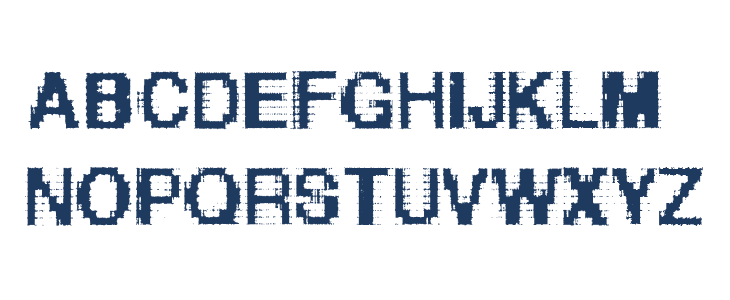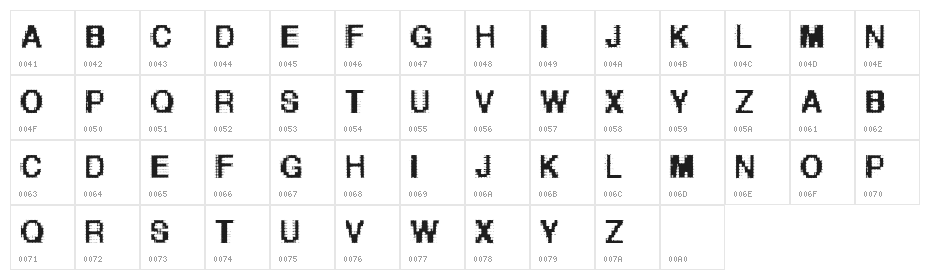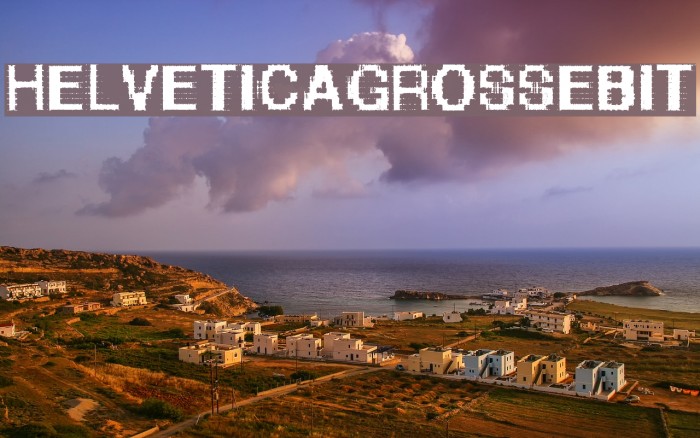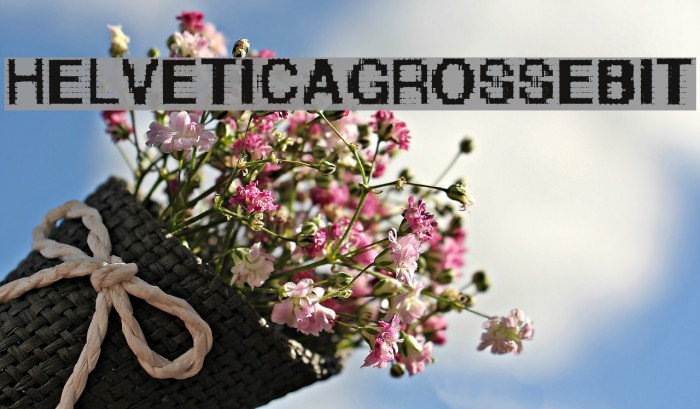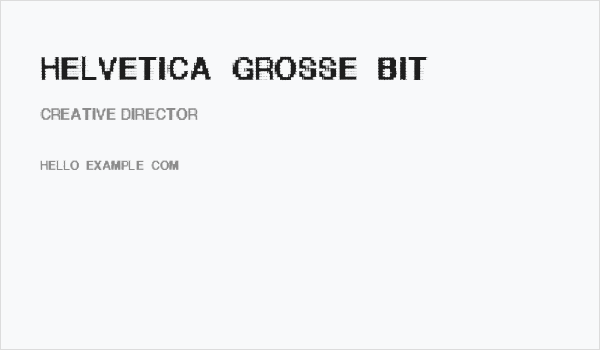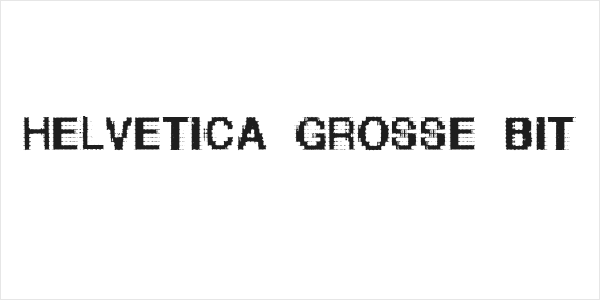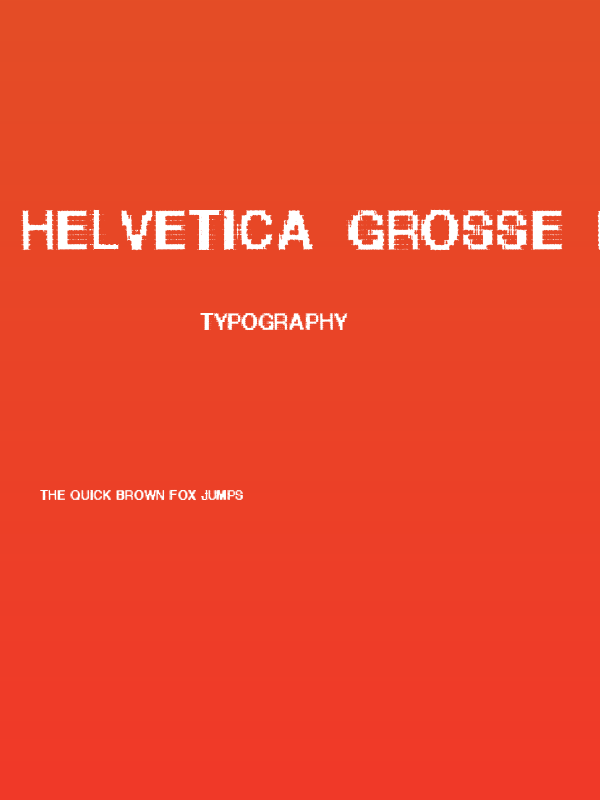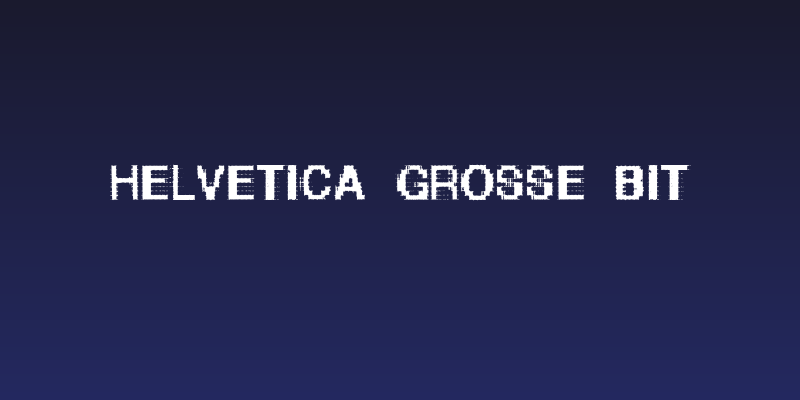
Helvetica-grosse-bit Font
Helvetica-grosse-bit Description
This font features a bold and pixelated style, reminiscent of early digital or bitmap fonts. The characters are blocky and have a distinct, rugged texture that gives them a unique, retro appearance. The uppercase letters are uniform in height and width, creating a consistent and structured look. The font's pixelated edges add a layer of visual interest, making it suitable for designs that aim to evoke nostalgia or a vintage digital aesthetic. Its boldness ensures that it stands out, making it ideal for attention-grabbing headlines or titles.
| Proposed Projects | Ideal for retro-themed designs, video game graphics, digital art projects, and vintage computer interfaces. |